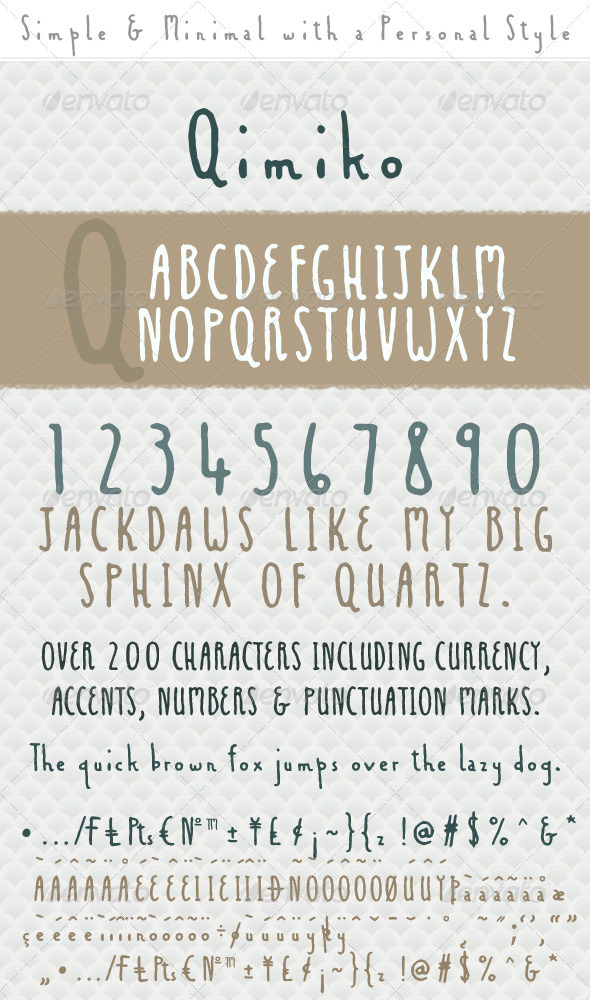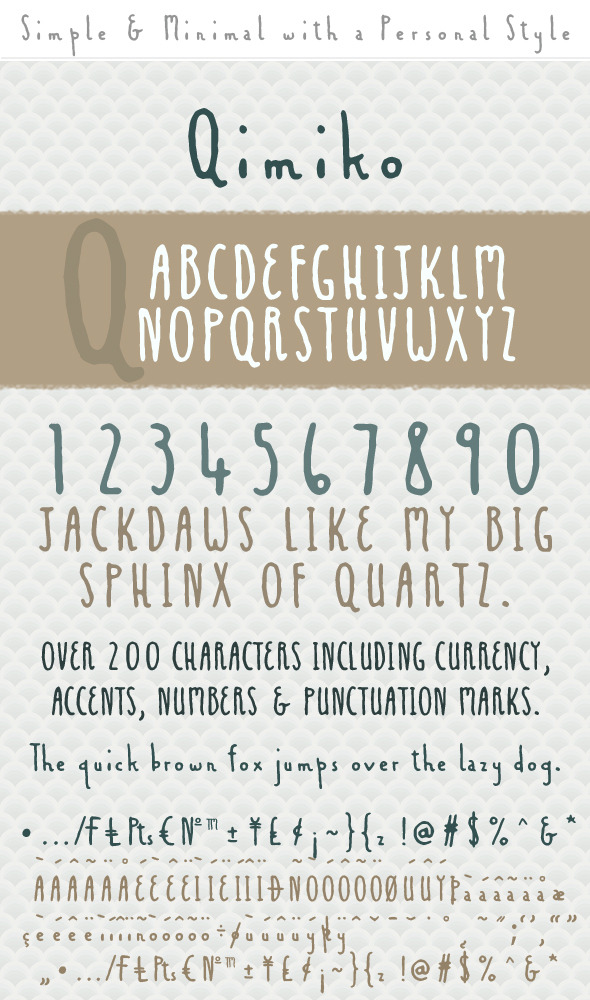
A simple hand-drawn font to provide you with a minimal style that still has a personal, slightly idiosyncratic character. It suits any project where you want a friendly but easily readable type.